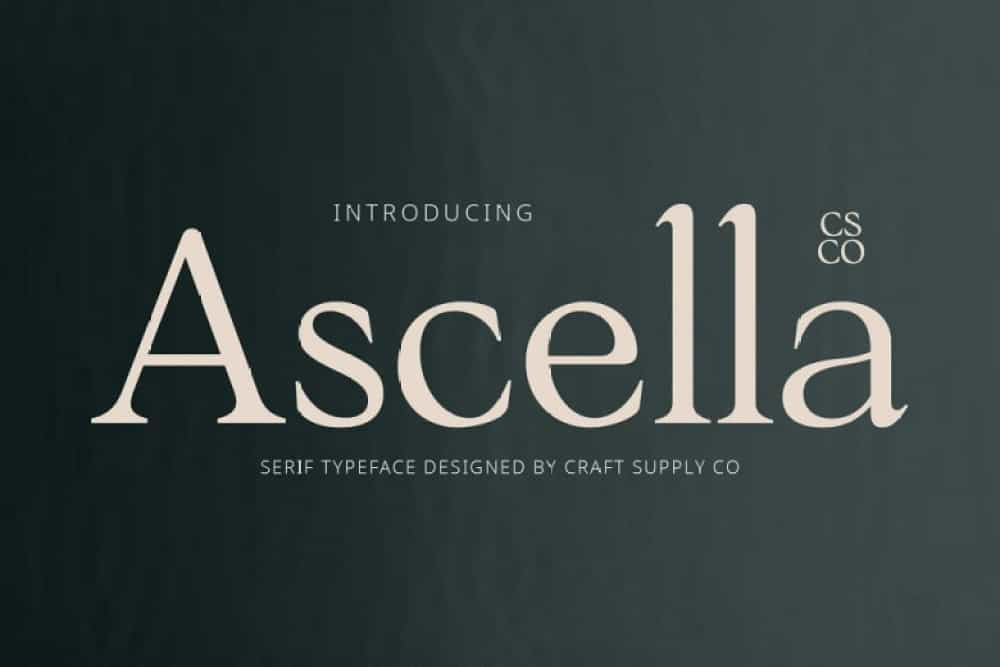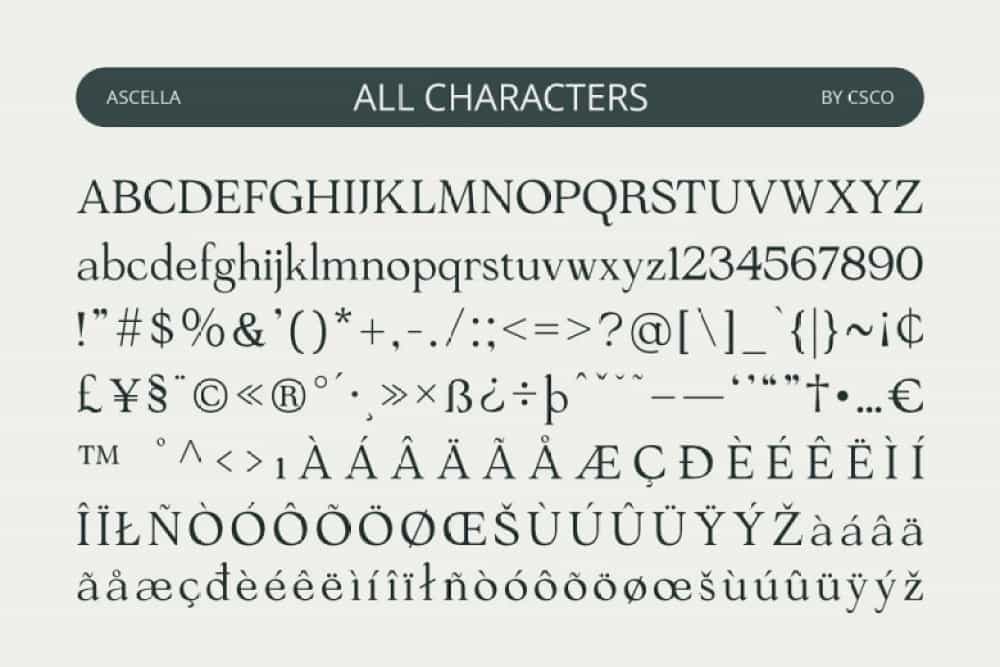
Ascella is a new generation serif font with a fine look that is suitable for most applications. With a minimalistic approach and a lot of attention to detail it would work well in brand design as well as in editorial design. Thanks to its smooth shapes and the traditional serifs, Ascella is a new approach to the classical serif fonts. The current style gives a clean and corporate feel which is very suitable for businesses, brands and organizations.